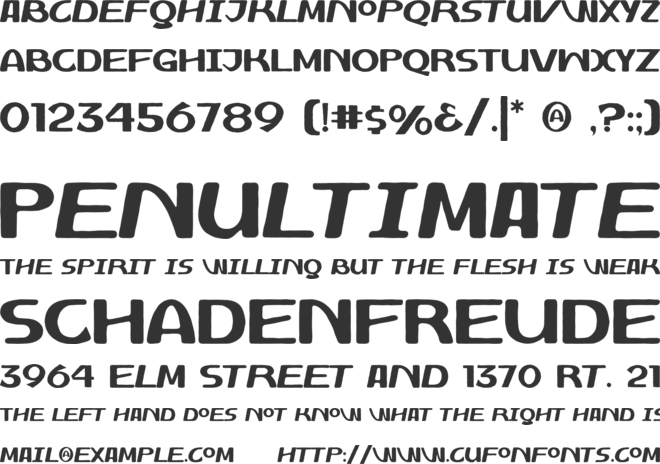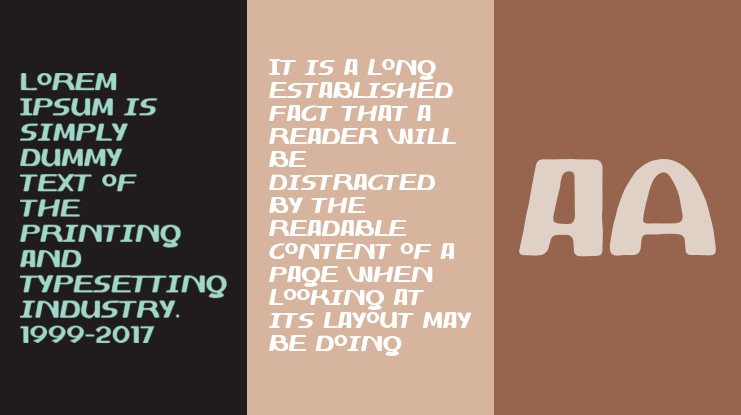
Borneo Amber Font
Borneo Amber is designed for those who appreciate the art of contrast—where modern precision meets vintage personality. The bold geometry of its letterforms is softened by subtle curves and handcrafted detailing, creating a look that feels both sturdy and expressive. It stands out in headlines, packaging, and signage with a tone that’s confident but approachable, contemporary yet nostalgic.
The font includes clean and rough versions, giving designers room to experiment between modern minimalism and tactile imperfection. With multilingual support and distinctive all-caps design, Borneo Amber is versatile enough for any creative context. From coffee shop branding to editorial layouts, it captures the spirit of timeless design reborn for the modern era.